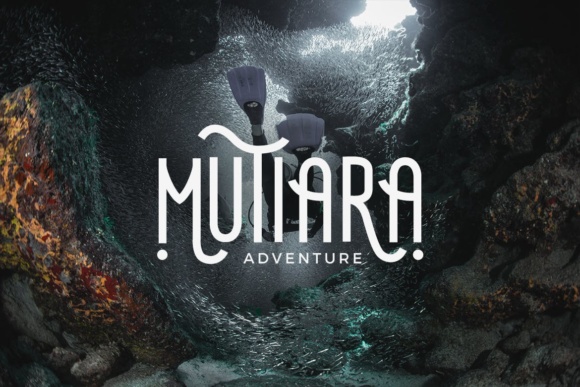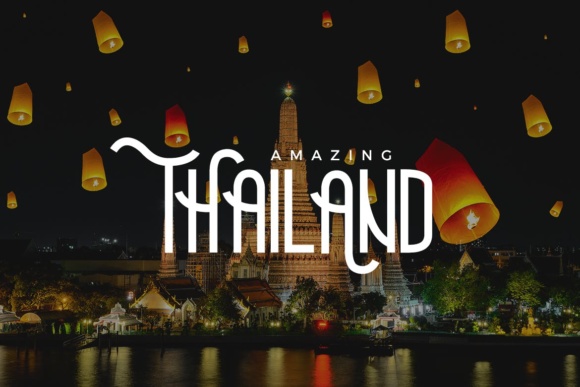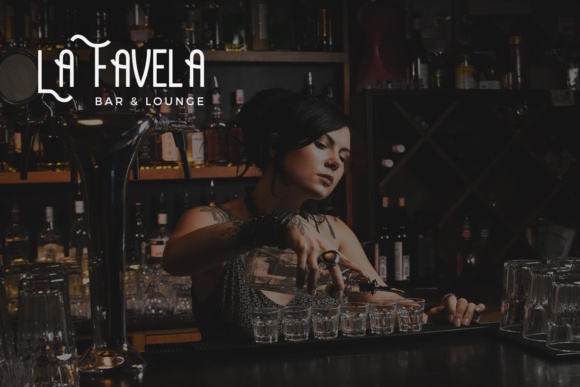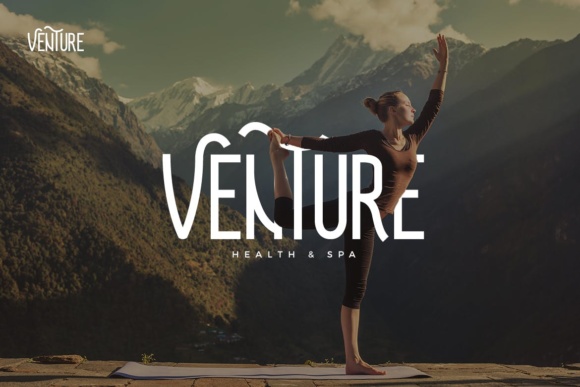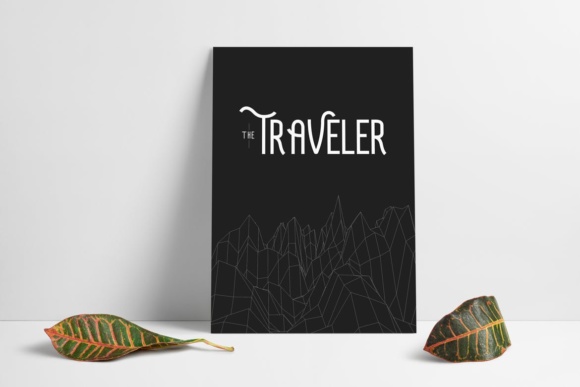
Discover the Power of Extraordinary Font: Elevate Your Designs with a Beautiful Typeface
Are you tired of using the same old fonts in your designs? Look no further! Introducing Extraordinary, a stunning typeface that can add a touch of elegance and sophistication to your projects. In this article, we’ll explore the versatility of Extraordinary Font and how it can be used for various purposes, such as headings, logos, titles, and more.
What Makes Extraordinary Font So Special?
Extraordinary Font is a beautifully crafted typeface that boasts a unique and distinctive style. Its elegant lines, precise curves, and perfect proportions make it a joy to use in a wide range of design applications. Whether you’re creating a logo, heading, or title, Extraordinary Font is sure to make a lasting impression.
Versatility at Its Finest: Uses for Extraordinary Font
One of the best things about Extraordinary Font is its incredible versatility. Here are just a few examples of how you can use this amazing typeface:
- Headings: Use Extraordinary Font to create eye-catching headings that grab attention and draw the reader in. Its bold and elegant style makes it perfect for titles, subtitles, and section headings.
- Logos: Create a professional and memorable logo with Extraordinary Font. Its unique style and precision curves make it ideal for crafting custom logos that stand out from the crowd.
- Titles: Add a touch of sophistication to your titles with Extraordinary Font. Whether you’re creating a movie title, book title, or album title, this font is sure to make a lasting impression.
- Signage: Use Extraordinary Font to create stunning signage that grabs attention and communicates your message effectively.
- Packaging: Add a touch of elegance to your packaging with Extraordinary Font. Its precise lines and curves make it perfect for creating labels, tags, and other packaging materials.
Why Designers and Crafters Love Extraordinary Font
So, what is it about Extraordinary Font that makes it so popular among designers and crafters? Here are just a few reasons:
- Unique Style: Extraordinary Font boasts a unique and distinctive style that sets it apart from other typefaces.
- Elegance: Its elegant lines, precise curves, and perfect proportions make it a joy to use in a wide range of design applications.
- Versatility: Extraordinary Font can be used for a wide range of purposes, from headings and logos to titles and signage.
- Easy to Read: Despite its elegant style, Extraordinary Font is easy to read, making it perfect for body text and other applications where readability is key.
Tips for Using Extraordinary Font
Here are a few tips for getting the most out of Extraordinary Font:
- Experiment with Different Sizes: Extraordinary Font looks great in a wide range of sizes, from small body text to large headings.
- Play with Color: Try pairing Extraordinary Font with different colors to create a unique and eye-catching effect.
- Mix and Match: Don’t be afraid to mix and match Extraordinary Font with other typefaces to create a unique and interesting effect.
| Font Name | Extraordinary Font |
| Author | Micromove |
In conclusion, Extraordinary Font is a beautiful and versatile typeface that can add a touch of elegance and sophistication to your designs. Its unique style, precision curves, and perfect proportions make it perfect for a wide range of applications, from headings and logos to titles and signage. Whether you’re a designer, crafter, or simply someone who appreciates great typography, Extraordinary Font is definitely worth checking out.